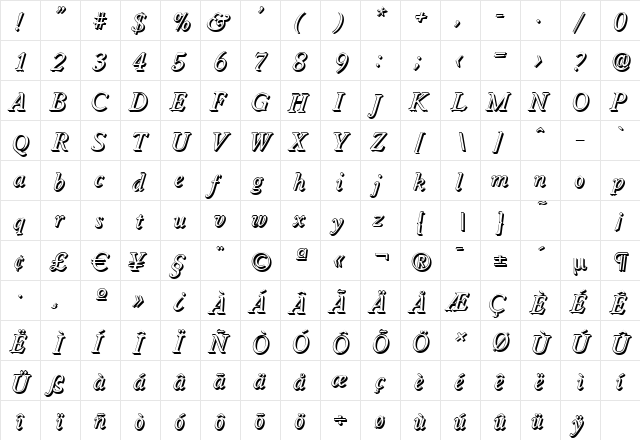
WorcesterShadow Italic
Design Context for WorcesterShadow Typeface
WorcesterShadow is built around its visual character rather than neutral utility — its distinctive forms are designed to make an impression at display sizes. The slanted form adds forward momentum and visual energy.
Font Pairing: Pair with a clean neutral sans-serif for body copy to let WorcesterShadow's character lead without overwhelming the composition.
Pro Tip: Treat WorcesterShadow as the centrepiece of your typographic hierarchy. One strong heading set in a decorative face can carry an entire layout.